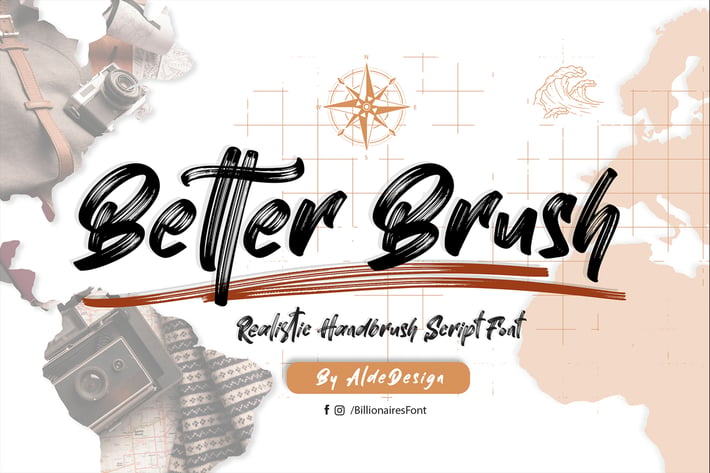
Better Brush // Realistic Brush Font
Better Brush - Realistic Brush Font
Better Brush - Realistic Brush Font is an elegant and flowing handwritten font, designed with the help of a unique and outstanding brush pen. Fall in love with its incredibly versatile style and use it to create spectacular designs!
It is suitable for any branding, product packaging, invitation, quote, t-shirt, label, poster, logo that you wish to create.
Stylish modern handwritten script
Special Ligatures and Swash (Underlines)